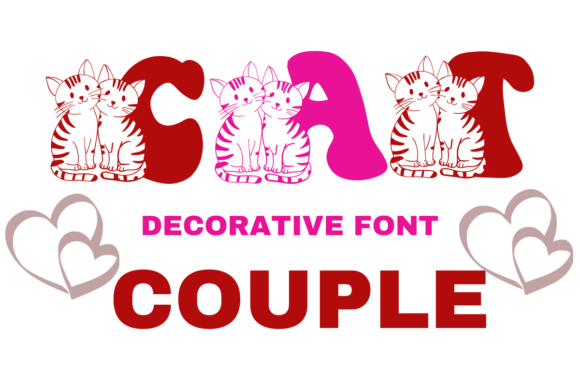
Get Ready to Purr-fect Your Designs with Cat Couple Font
Who hasn’t had that moment when they’re brainstorming ideas for a creative project, and suddenly, a cute cat couple face pops into their head? For designers and crafty enthusiasts, this adorable image can be the spark that sets their imagination ablaze. If you’re one of them, you’re in luck because we’re about to introduce you to the Cat Couple Font – a charming, decorative font designed to bring a touch of whimsy to your designs.
The Cat Couple Font is perfect for writing love notes, creating greeting cards, or even jotting down your daily diary entries. But its possibilities don’t stop there! This versatile font can be used for a wide range of designs, from banners and social media posts to mugs, cards, and shirts. For designers, the Cat Couple Font is a valuable asset, offering endless opportunities to add a playful, romantic twist to their work.
- Size: The font family includes multiple weights and styles, ranging from ExtraLight to Bold, providing a wide range of design possibilities.
- Unique Characteristics: The Cat Couple Font features a playful, hand-drawn design with a romantic twist, making it perfect for creating whimsical and affectionate content.
- Language Support: The font includes support for a wide range of languages, including Latin, Cyrillic, and Greek, making it suitable for international designs.
Cat Couple Font Review
I recently had the chance to work with the Cat Couple Font, and I’m excited to share my honest thoughts on this unique font. ✨ One thing that immediately caught my attention was the quirky, playful nature of this font. The designers have successfully captured the adorable and loving essence of cat couples, making it perfect for any cat lover or enthusiast.
- ✨ Unique and creative design: The Cat Couple Font is not your average font. It’s a one-of-a-kind design that’s sure to stand out in any project.
- ✨ Perfect for cat lovers: Whether you’re designing a website, social media post, or advertising campaign, this font is sure to resonate with cat enthusiasts.
- ✨ Easy to read: Despite its quirky nature, the font is surprisingly easy to read, making it a great choice for body text.
- ⚠️ Limited character set: The font only includes a limited set of characters, which may not be suitable for more complex projects.
- ⚠️ Not ideal for formal projects: Due to its playful nature, this font may not be the best choice for formal or professional projects.
Overall, I think the Cat Couple Font is a great addition to any designer’s toolkit. While it may have some limitations, its unique design and playful nature make it perfect for the right projects. With a little creativity, this font can help bring your designs to life and capture the hearts of cat lovers everywhere.
Tips for Getting the Most Out of the Cat Couple Font
For the best results, use the Cat Couple Font for designs that feature a playful and whimsical tone. Some common use cases include:
- Cat-themed merchandise and designs.
- Children’s book illustrations and designs.
- Whimsical wedding invitations and decorations.